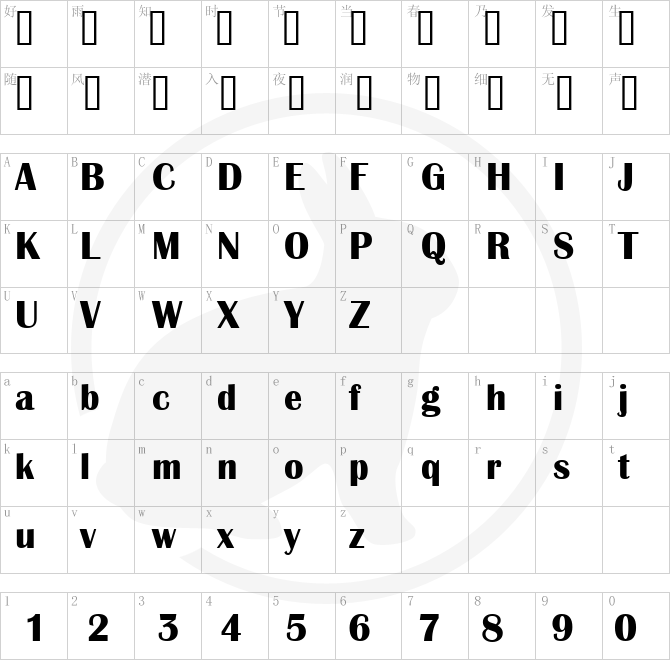
- Font Name:a_Albionic
a_Albionic-Bold.ttf is a very beautiful artistic font, a_Albionic-Bold.ttf is widely used in the design and printing of various books and pictures,a_Albionic-Bold.ttf has a strong visual impact,a_Albionic-Bold.ttf is a commonly used font in newspapers, magazines and books, and is used in posters, e-commerce Poster design, store design, logo design, font design and other fields.a_Albionic-Bold.